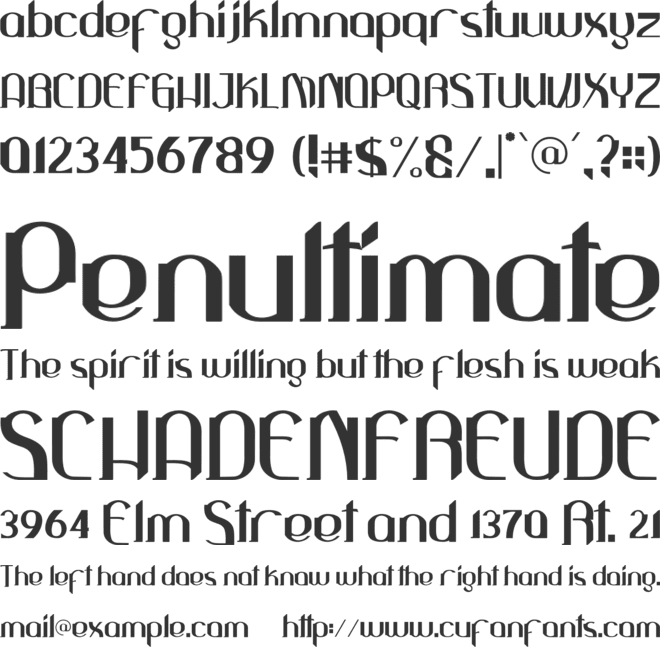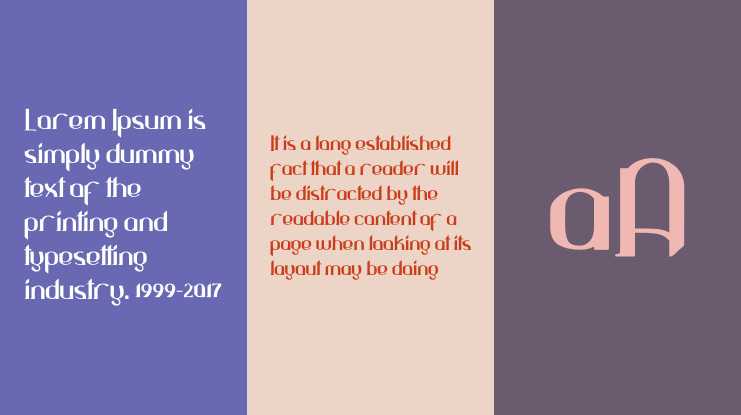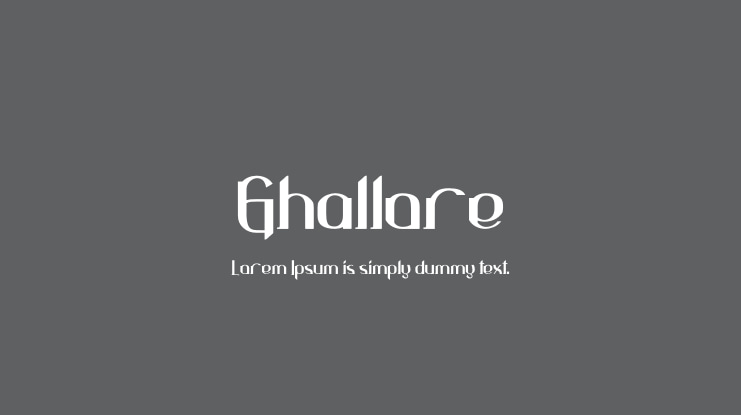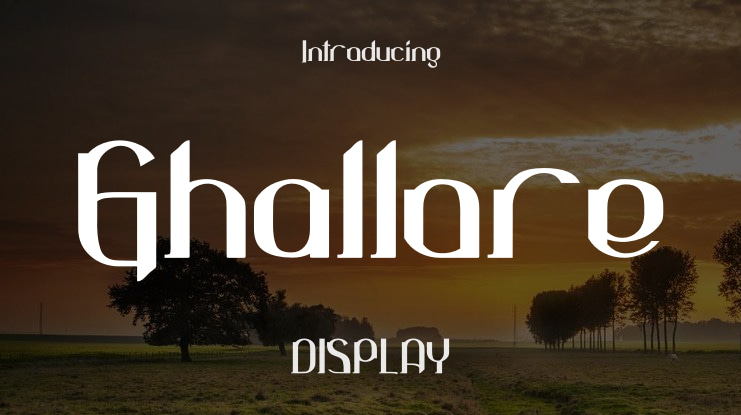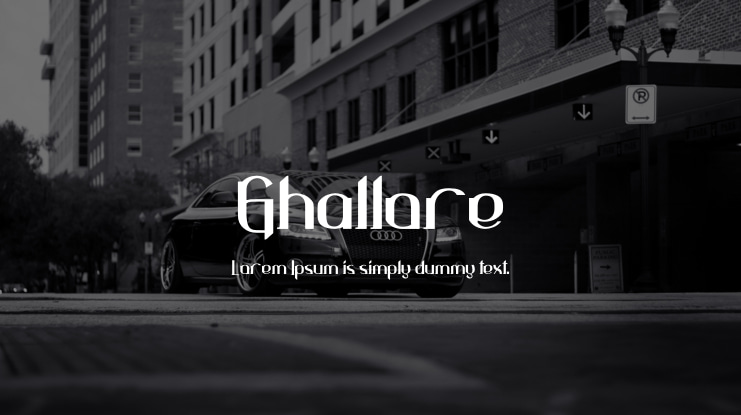
Ghallore Font
Ghallore is a decorative display font with a modern style. The firm shapes combined with the swash and stylistic curves make this font look attractive.